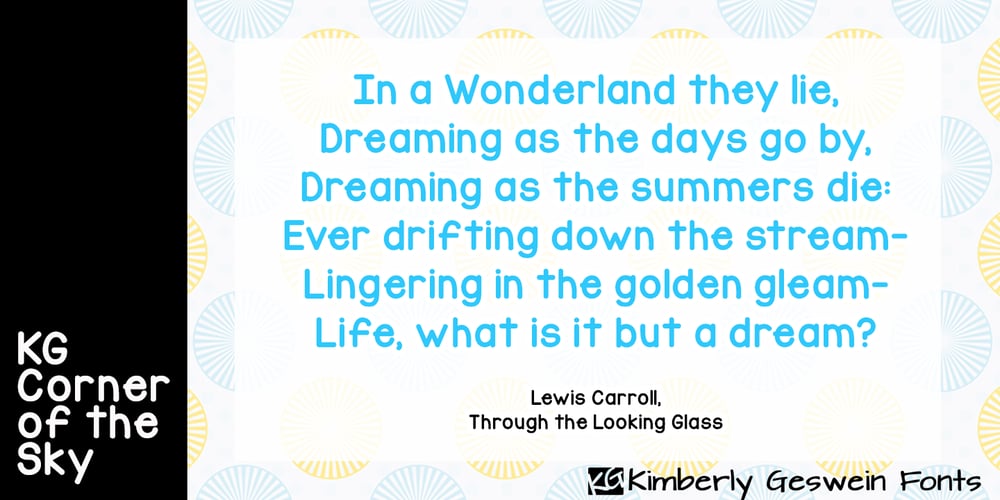
KG Corner Of The Sky Font Family was designed by Kimberly Geswein and published by Kimberly Geswein. KG Corner Of The Sky contains 1 styles and family package options. A fatter, more kid-friendly version of KG Lego House, this font is designed specifically for elementary teachers who requested a neat, legible font with a thicker outline.